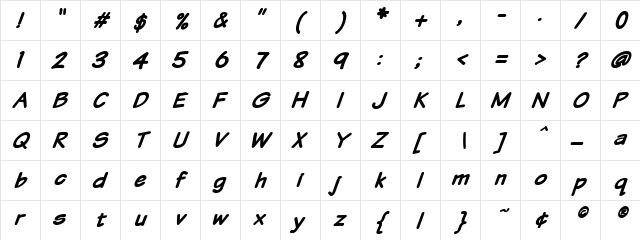
VTCSundaykomix Bold Italic
Design Context for VTCSundaykomix Typeface
VTCSundaykomix is a composed and adaptable typeface that performs quietly and consistently across a wide range of design contexts. The dynamic lean of this cut emphasises speed and emphasis in any layout. The heavy weight commands attention and anchors typographic hierarchies.
Pro Tip: Use VTCSundaykomix for emphasis, pull quotes, and subheadings where its slanted energy can add rhythm to the layout.